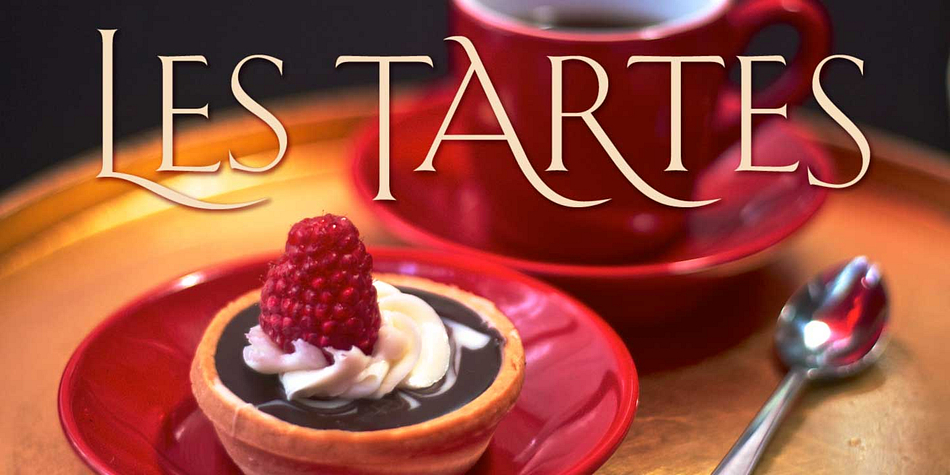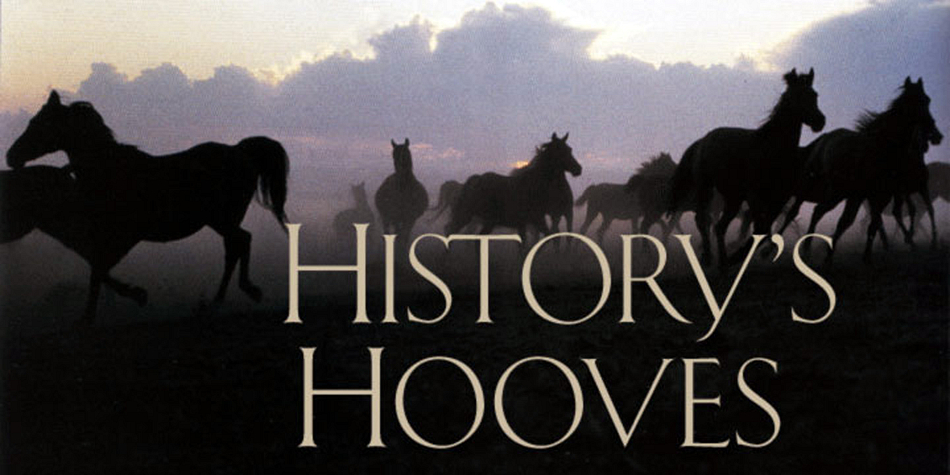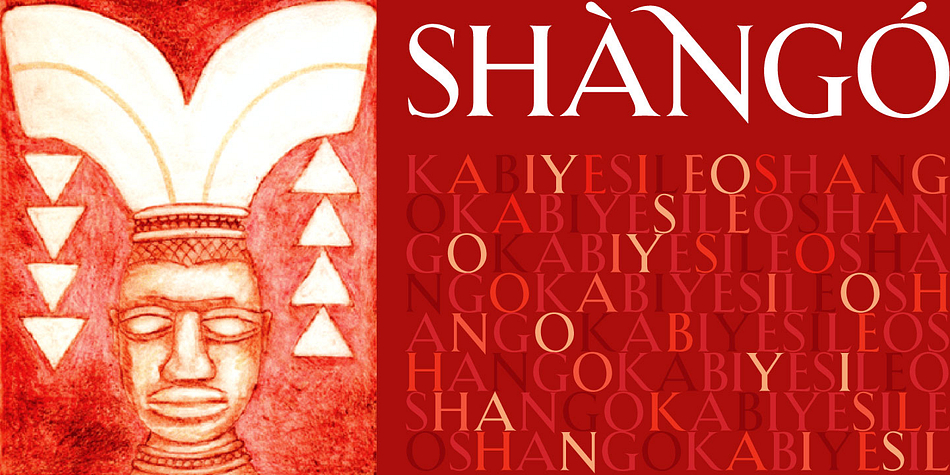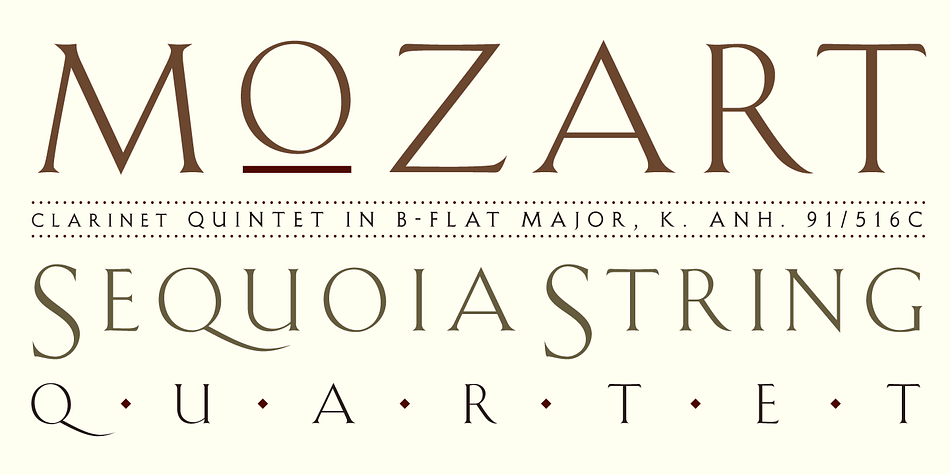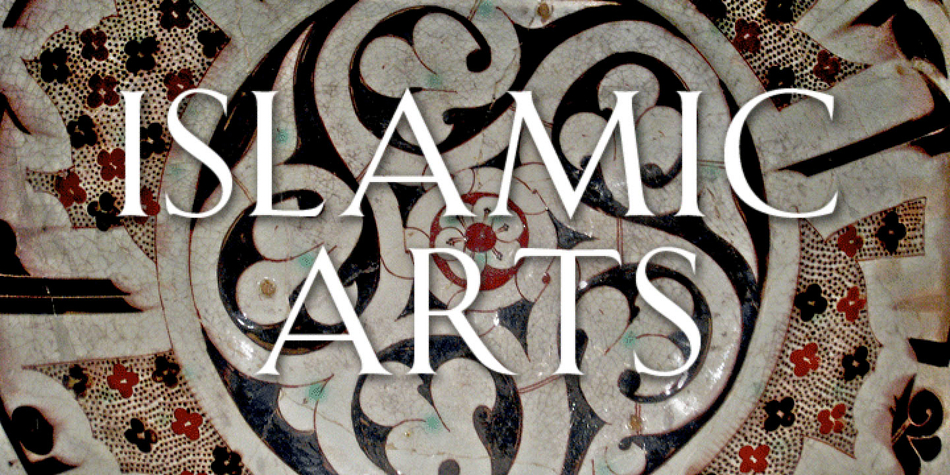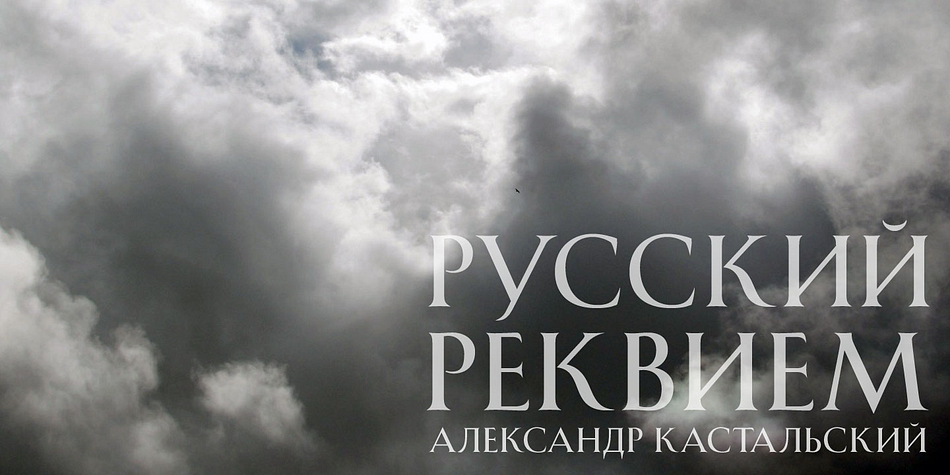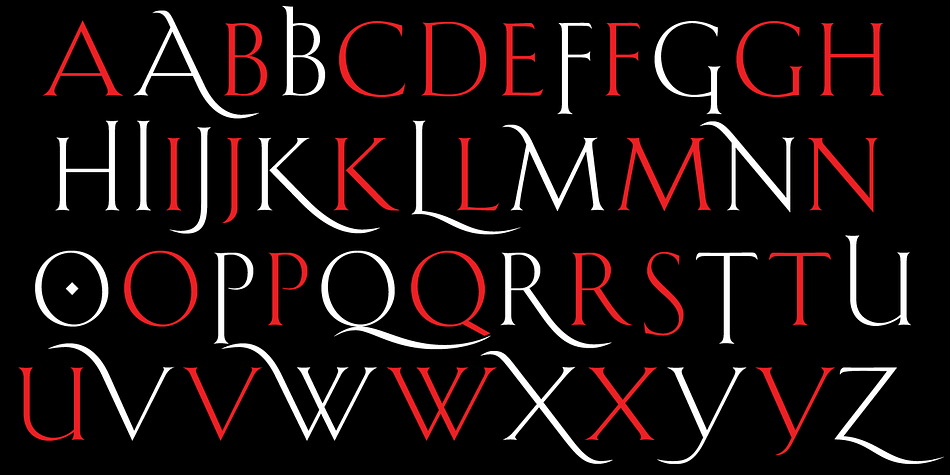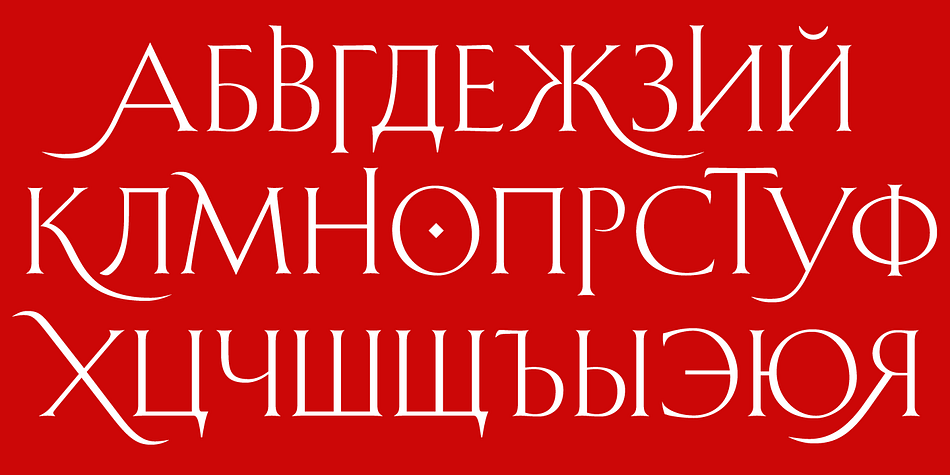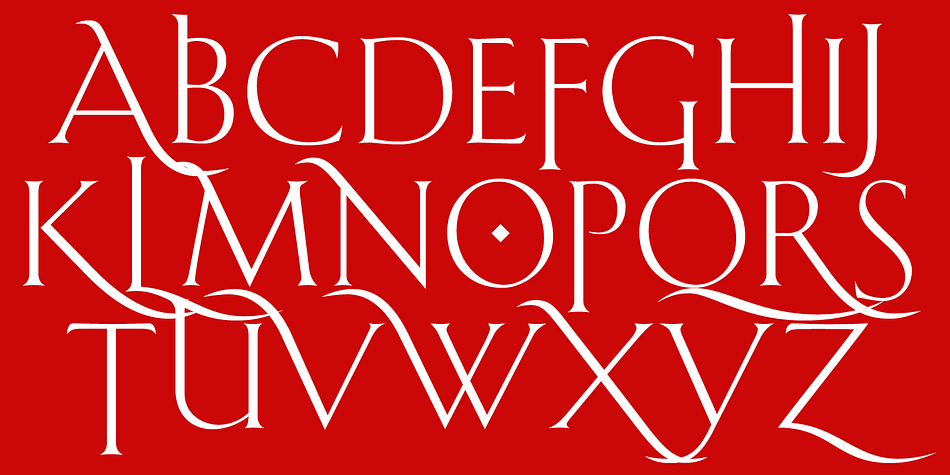
SHANGO CLASSIC
Shango Classic is a display serif and historical font family. This typeface has three styles and was published by CastleType.
Shàngó, inspired by the initials from Professor F.H.
Ernst Schneidler
Shàngó is available in two styles: Classic, available in 3 weights, and Gothic, available in 4 weights.
Shàngó is a member of the extended Shàngó family (Classic, Chiseled, Sans, Gothic).
Shàngó, inspired by the initials from Professor F.H. Ernst Schneidler’s classic design released in 1936 as Schneidler-Mediaeval mit Initialen, is an elegant design that looks best when used at large sizes, as the original name suggests. Shàngó is available in two styles: Classic, available in 3 weights, and Gothic, available in 4 weights. Shàngó is a member of the extended Shàngó family (Classic, Chiseled, Sans, Gothic).